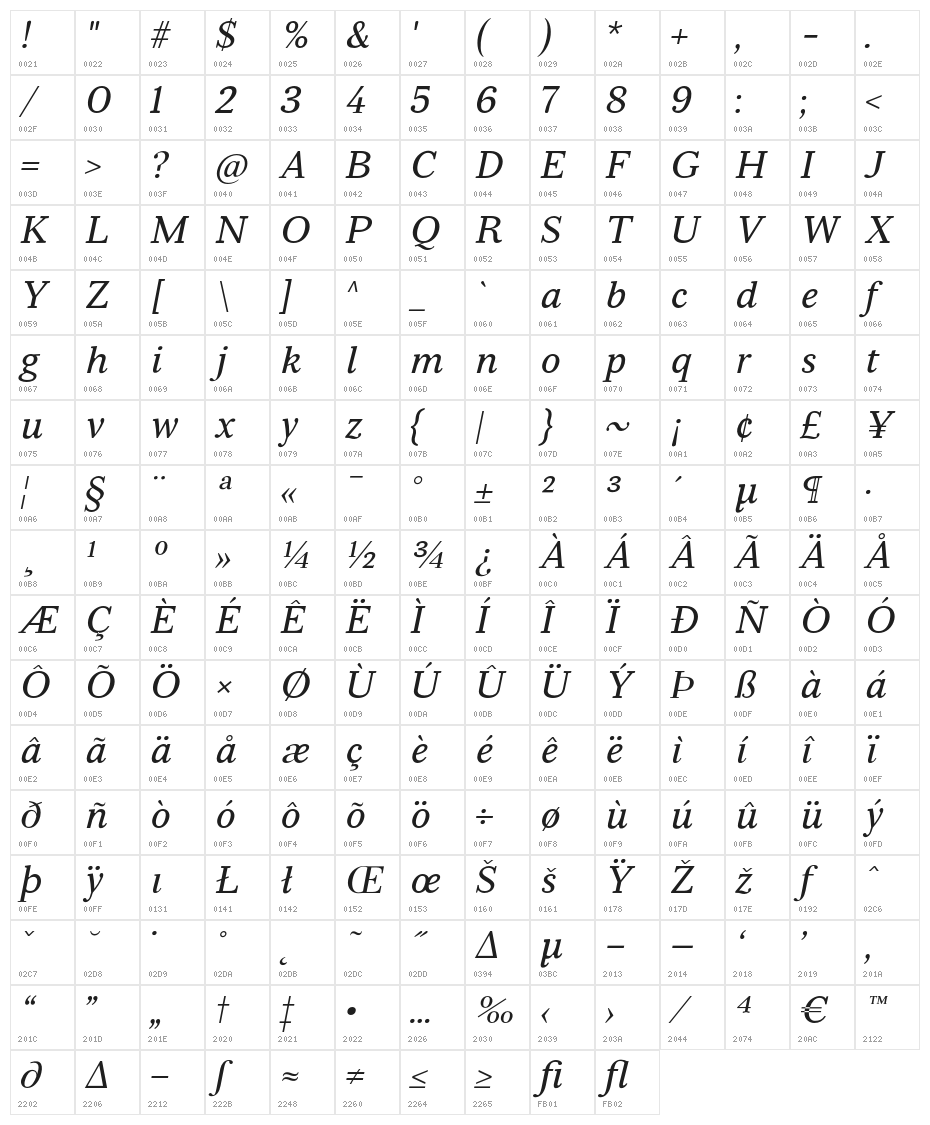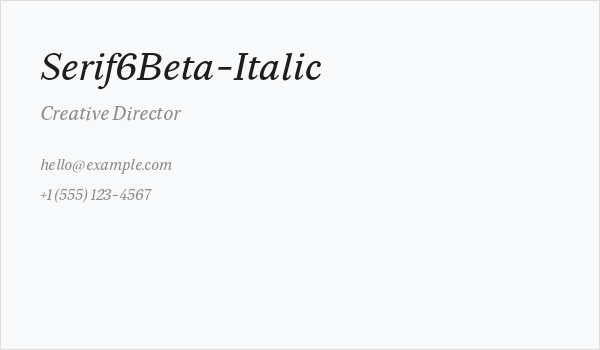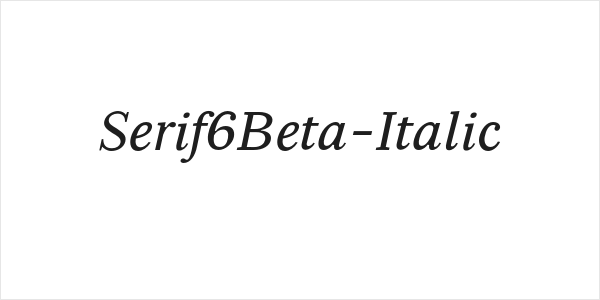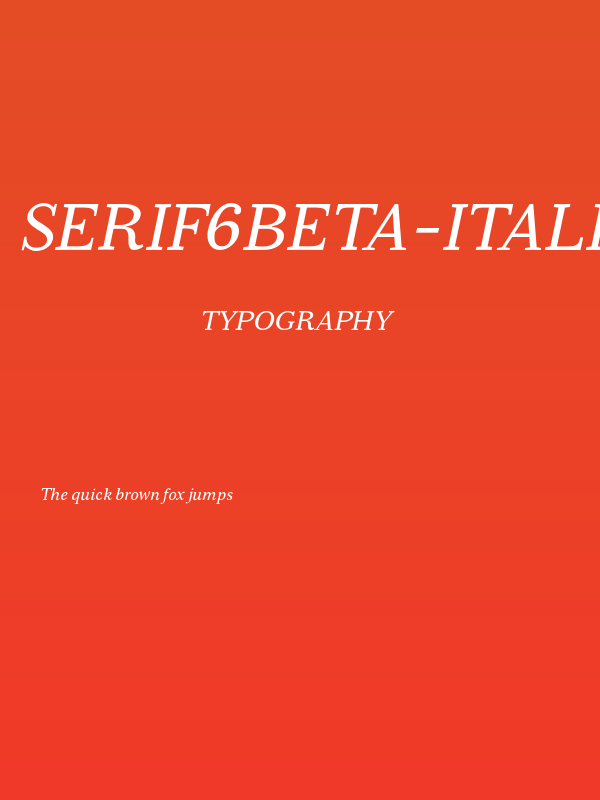
Serif6Beta-Italic Font
Serif6Beta-Italic Description
This font exhibits a classic serif style with elegant, flowing lines and a distinct italic slant. The uppercase letters are tall and stately, while the lowercase letters maintain a consistent and harmonious appearance. The numerals are clear and well-defined, complementing the overall aesthetic. Special characters are crafted with precision, adding to the font's versatility. The italic nature of the font adds a sense of movement and sophistication, making it suitable for formal and creative applications.
| Proposed Projects | Ideal for book covers, formal invitations, branding, and editorial design. |